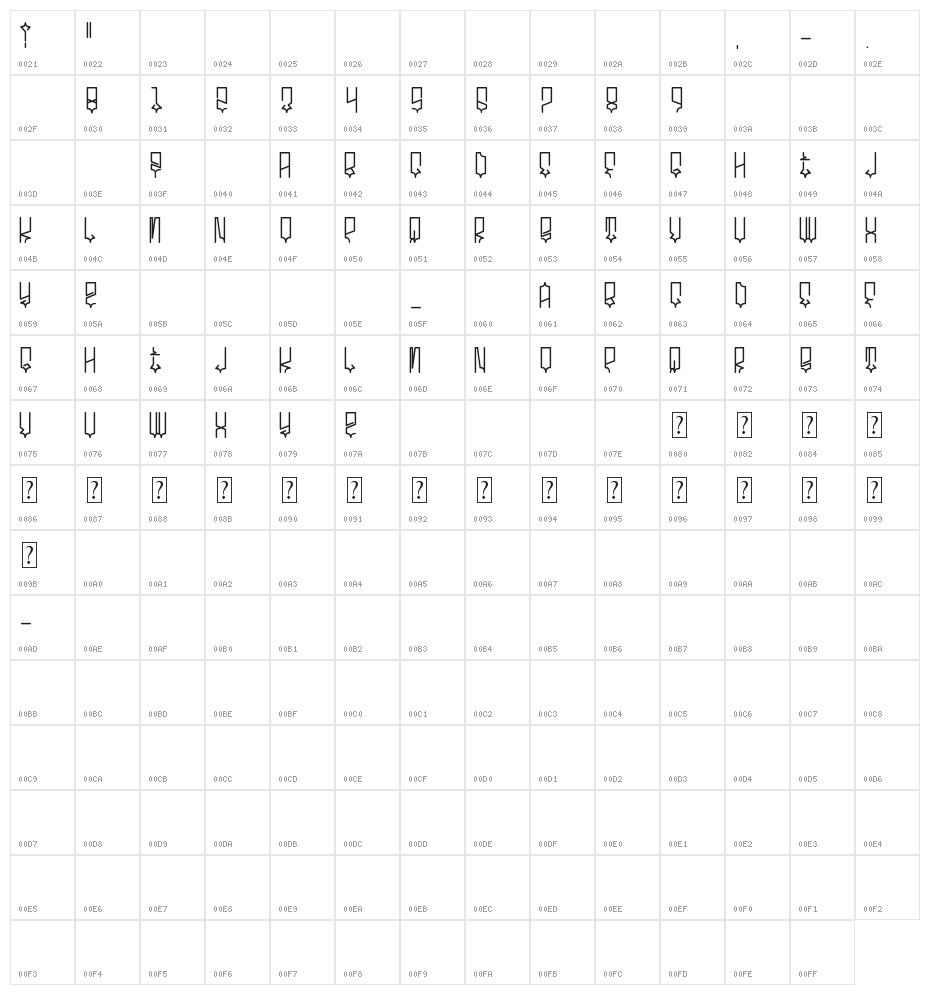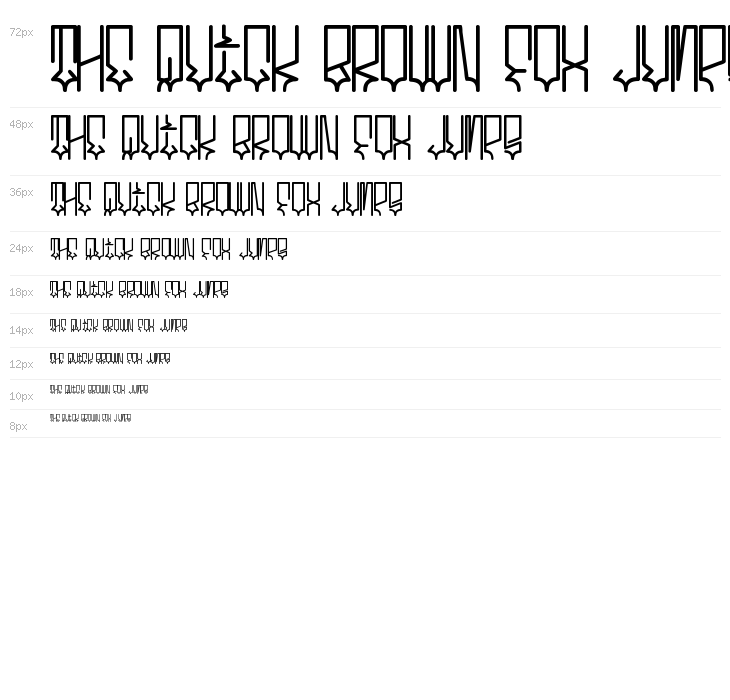
westcoast ink Font
westcoast ink Description
This font features a unique, decorative style with intricate, angular lines and sharp edges. Each character is designed with a distinct geometric pattern, creating a visually striking appearance. The uppercase and lowercase letters maintain a consistent height, contributing to a uniform look. The numbers and special characters follow the same design principles, ensuring cohesion across all elements. This font's bold and artistic nature makes it ideal for projects that require a strong visual impact.
| Proposed Projects | Ideal for tattoo designs, album covers, streetwear branding, and posters that require a bold, artistic flair. |